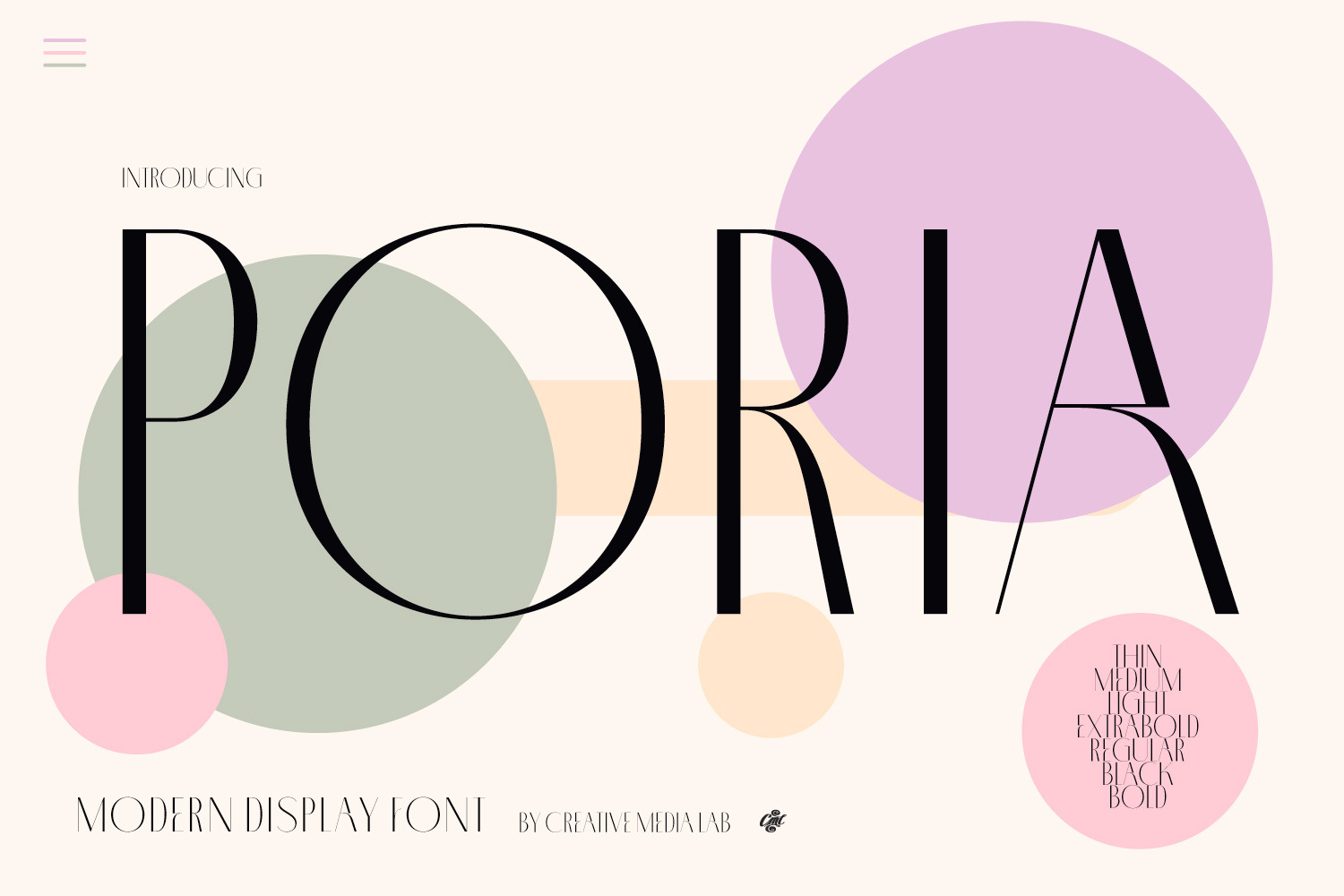
Poria - Modern Display font
Poria is a modern font with seven weight options, beautiful alternatives and dozens of unique monogram ligatures. The hallmark of Poria is the letter O which is wide compared to the other characters, so it becomes modern and attractive.
Poria is suitable as a logo or title for fashion brands, cosmetics, magazines, and many more.